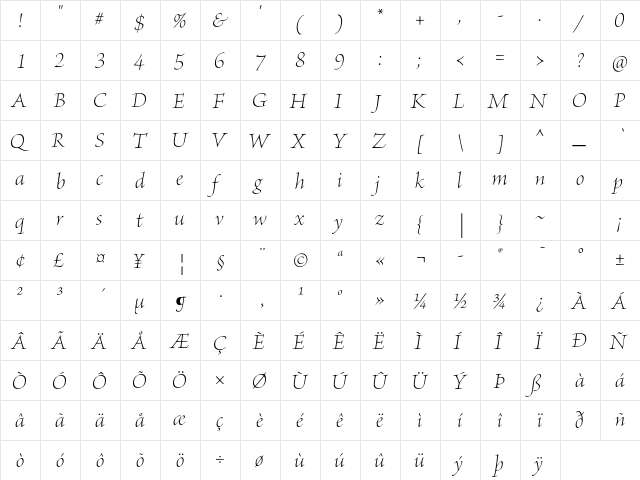
Brioso Pro Light Italic Display Font Preview
| Designer | Robert Slimbach |
Design Context for Brioso Pro Typeface
Brioso Pro is built around its visual character rather than neutral utility — its distinctive forms are designed to make an impression at display sizes. The dynamic lean of this cut emphasises speed and emphasis in any layout. The delicate stroke weight brings airiness and refinement to layouts.
Font Pairing: Pair with a clean neutral sans-serif for body copy to let Brioso Pro's character lead without overwhelming the composition.
Pro Tip: Use Brioso Pro exclusively at display sizes — it was designed to be seen, not read at length. Let a neutral companion handle body copy.